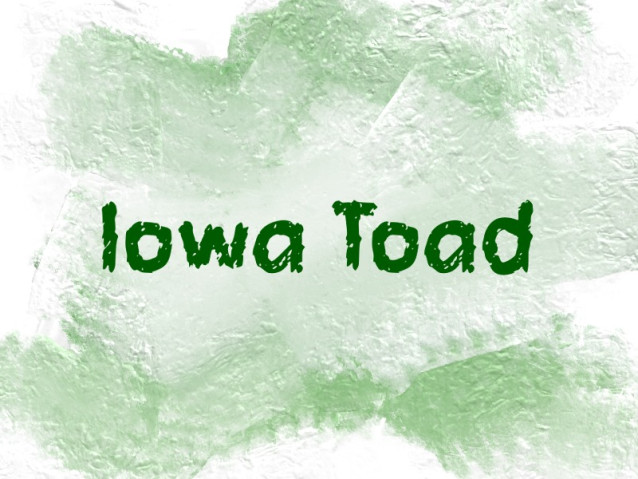
Iowa Toad Font
Iowa Toad Font is a uniquely crafted display font that strikes a perfect balance between organic textures and playful energy. Inspired by hand-carved wood and rustic brushstrokes, this typeface brings a warm, authentic human touch to any creative project.